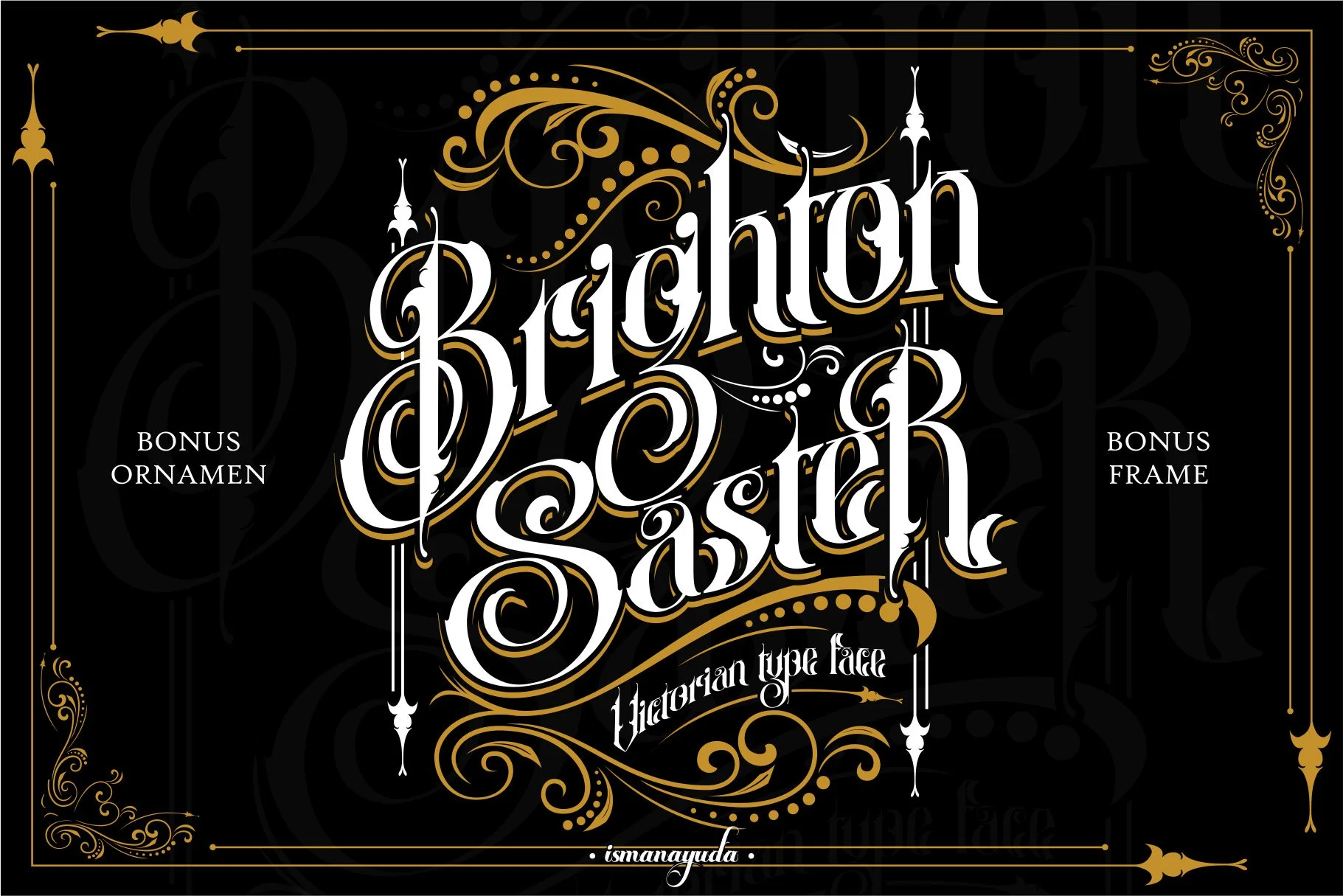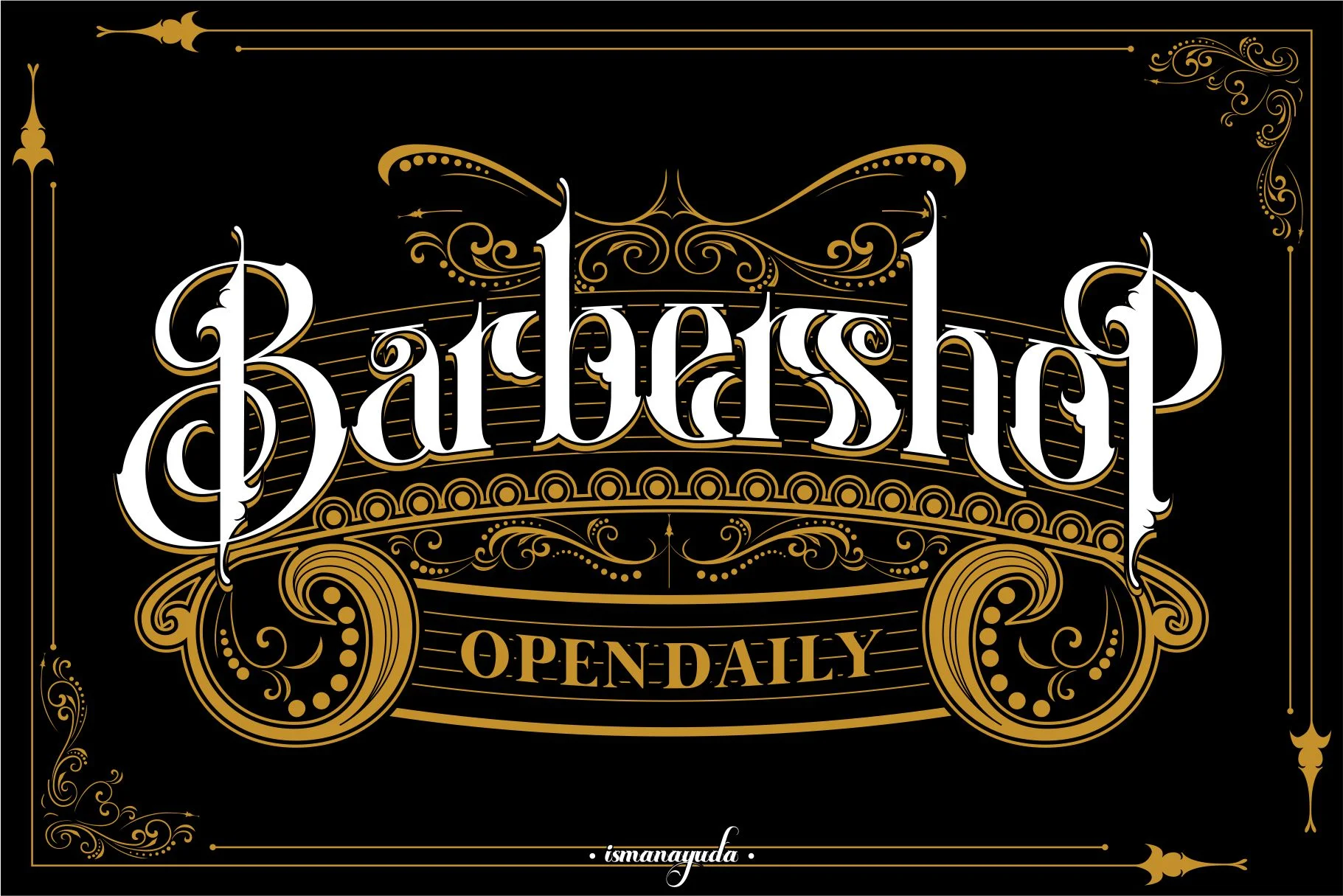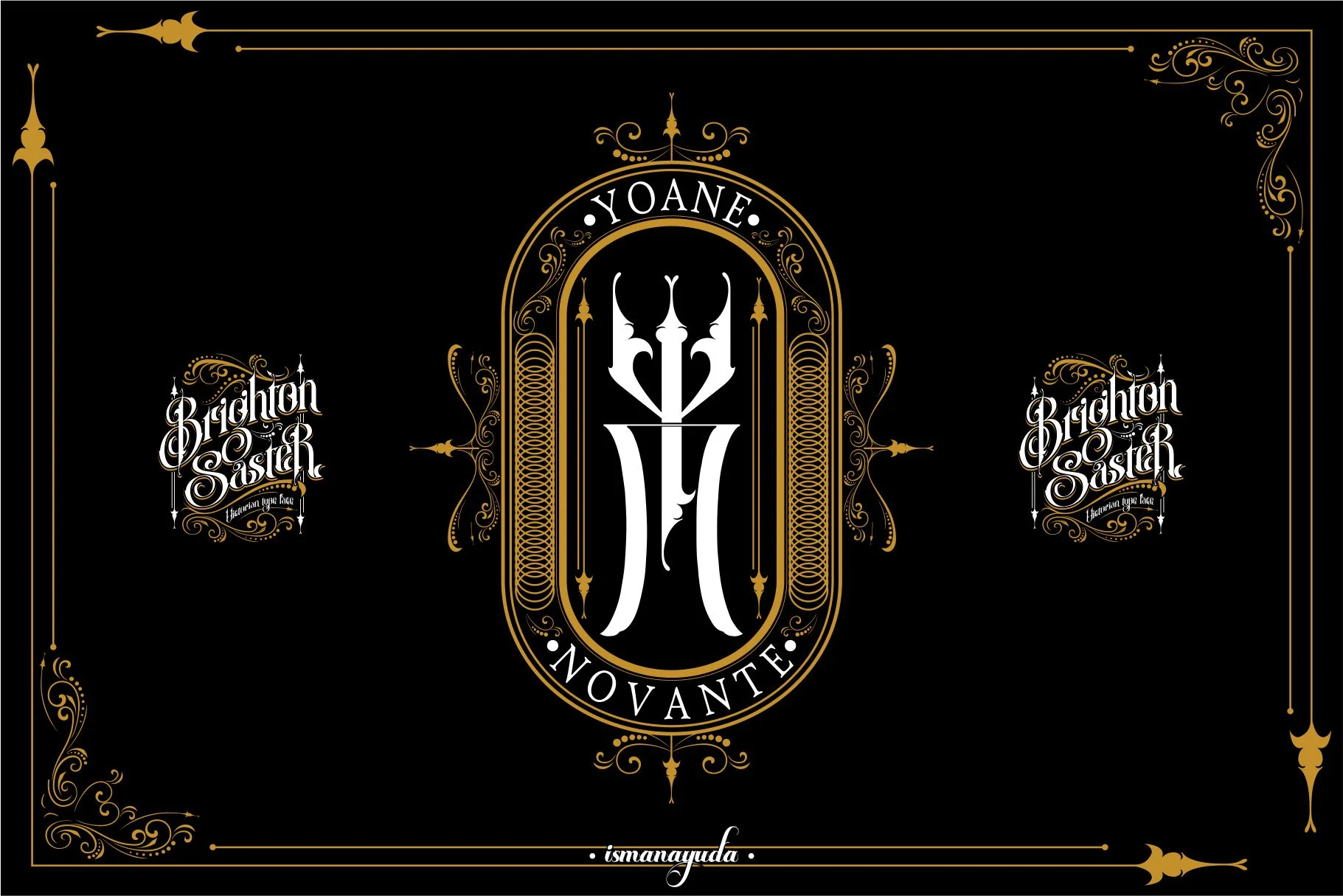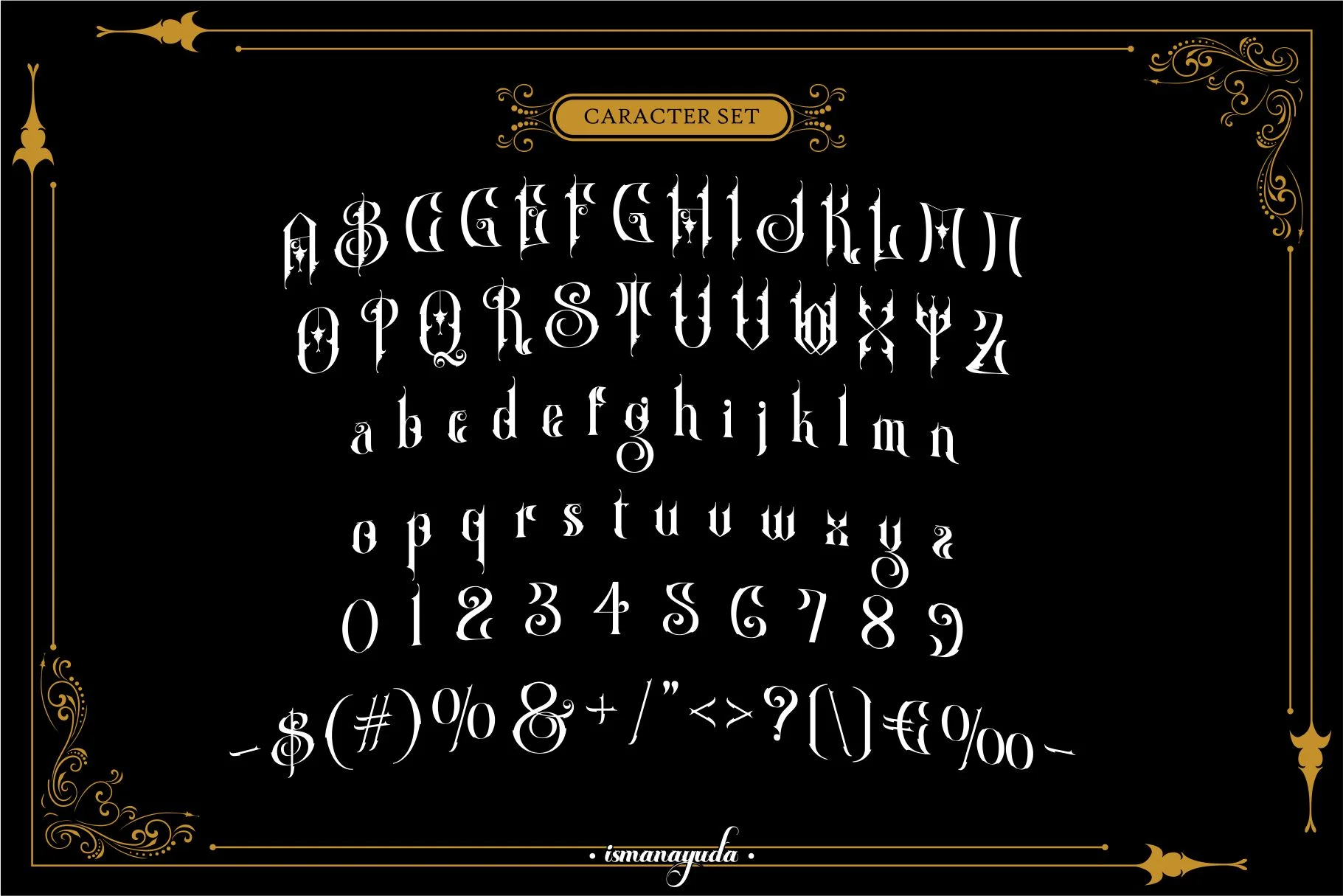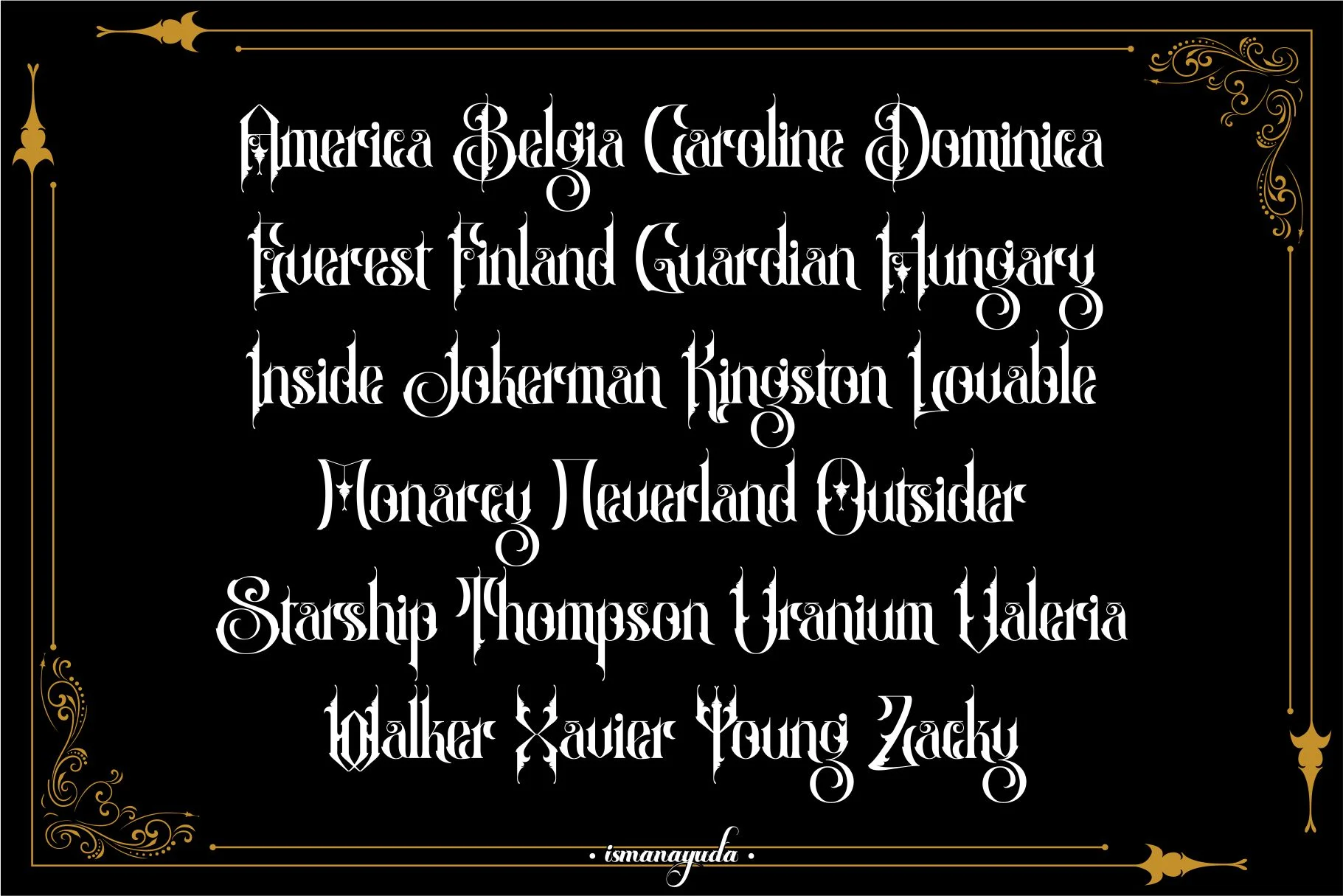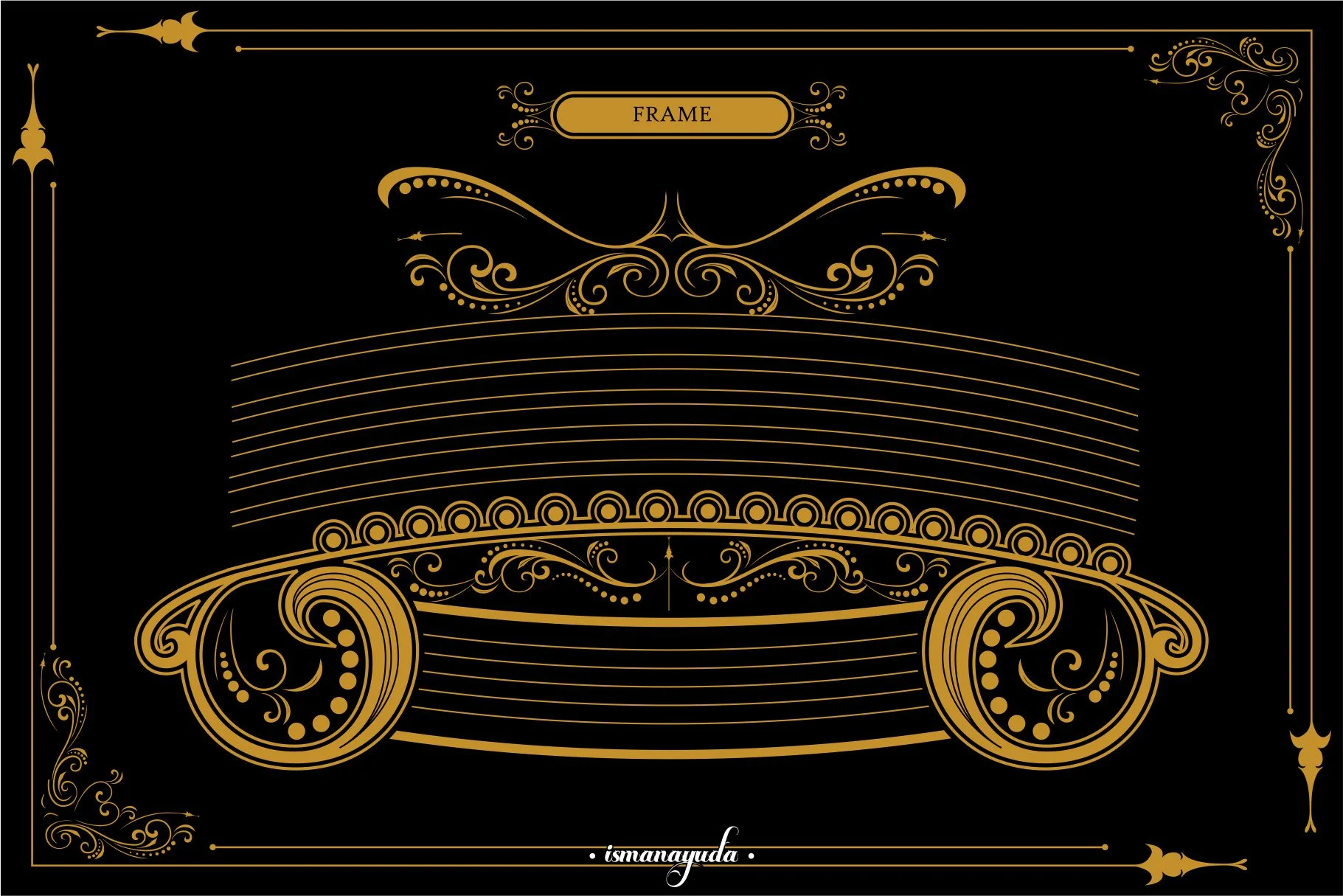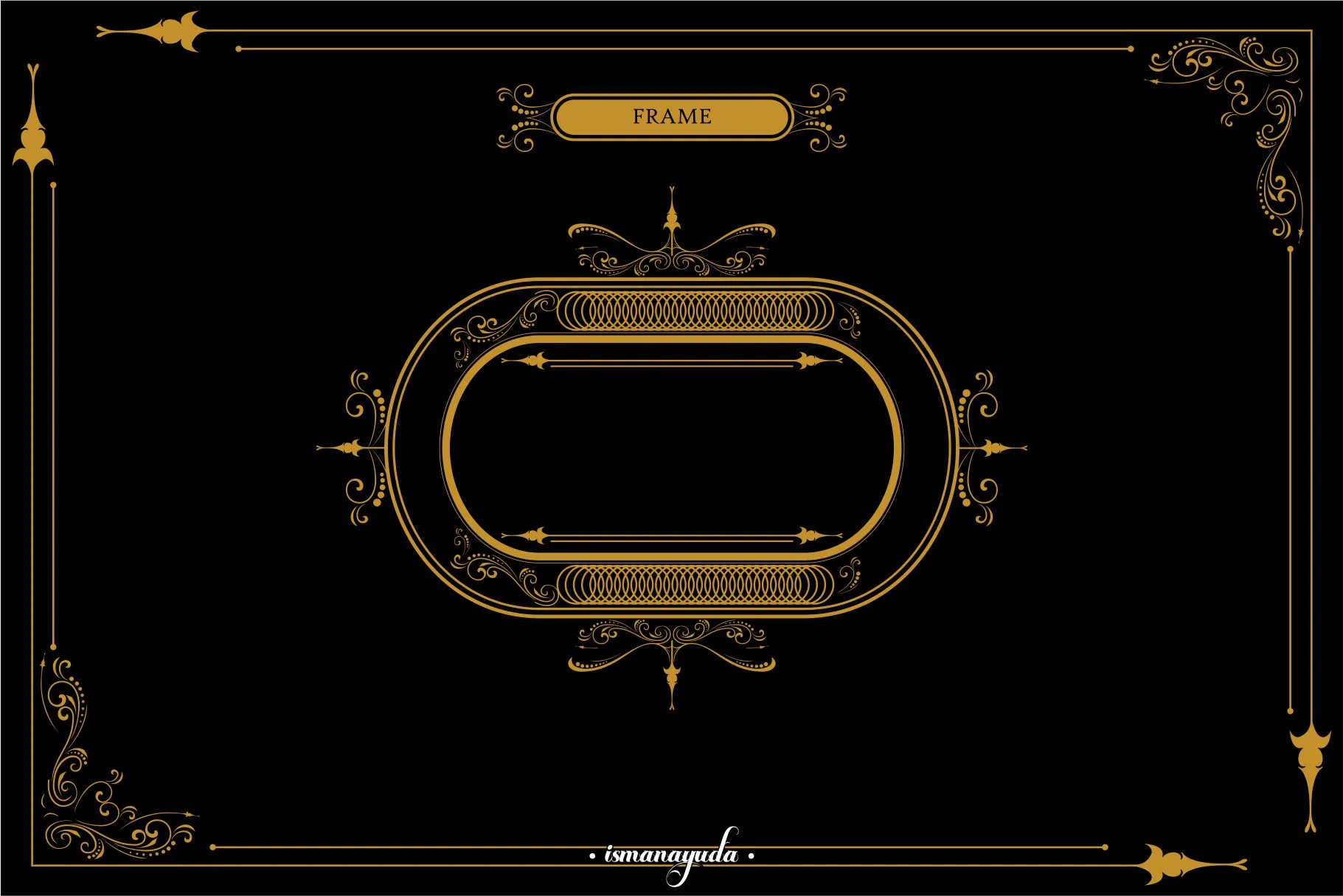
Brighton Saster
Brighton Saster is an ornate display font that captures the essence of 19th-century Victorian aesthetics. It is characterized by its elaborate swirls, elegant loops, and intricate detailing that evoke a sense of vintage sophistication and grandeur. The font often falls into the Blackletter or Gothic category due to its heavy, stylized structure and sharp terminals.
This typeface is highly versatile for creative projects, commonly used for t-shirt designs, cafe signage, and as a specialized tattoo font. Its artistic flair makes it ideal for branding that requires a "timeless" or "antique" presence, such as for logos, invitations, or heritage-style product packaging.